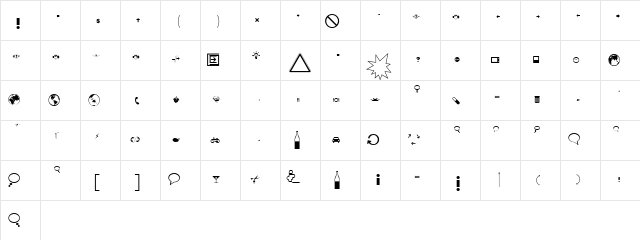
LinotypeFactsOfLife Regular
Design Context for LinotypeFactsOfLife Typeface
LinotypeFactsOfLife is a composed and adaptable typeface that performs quietly and consistently across a wide range of design contexts.